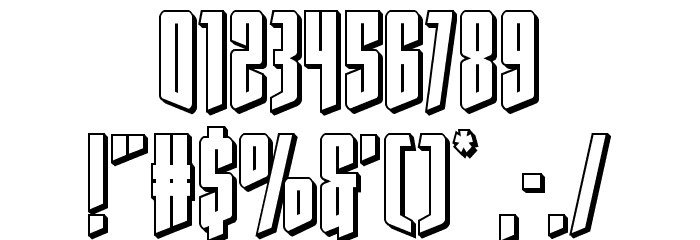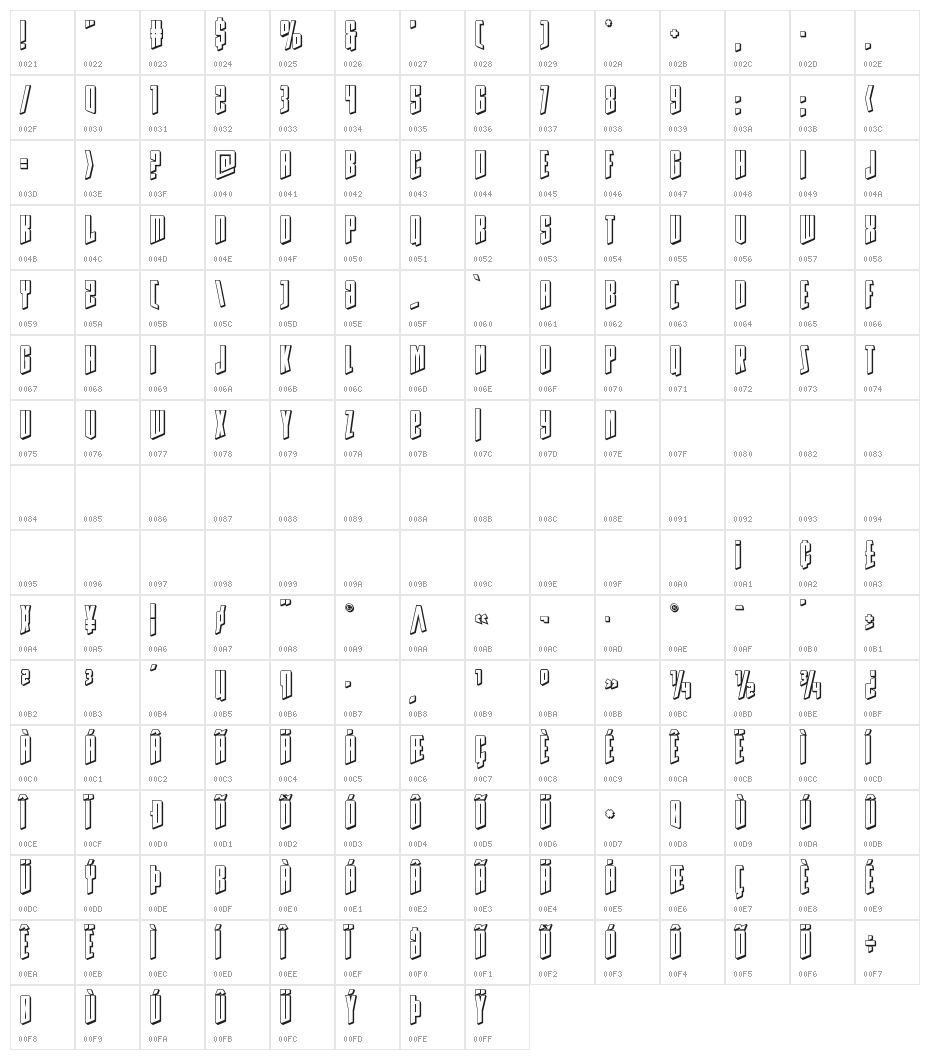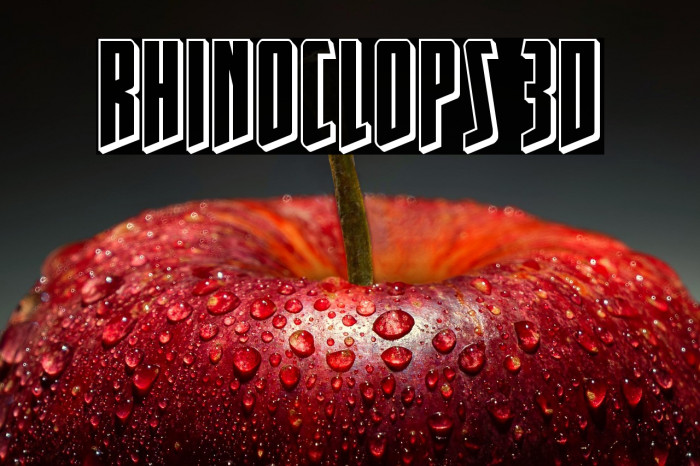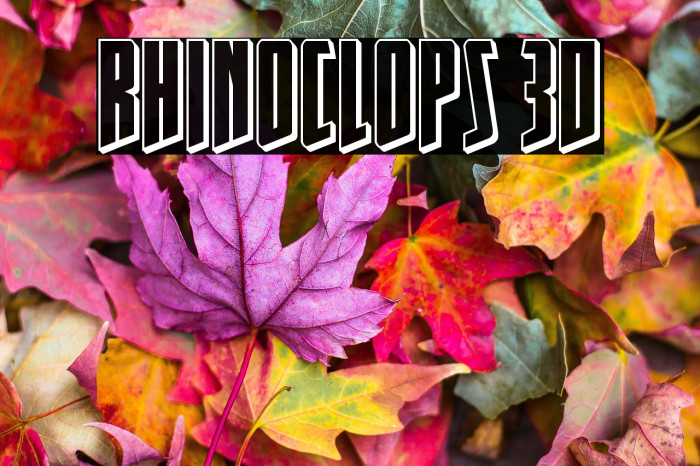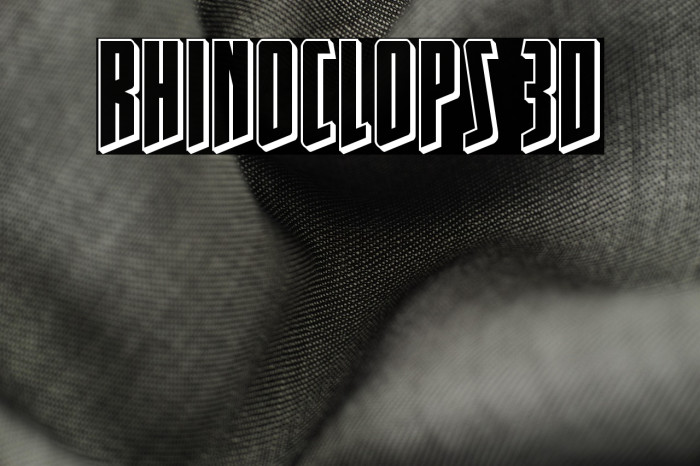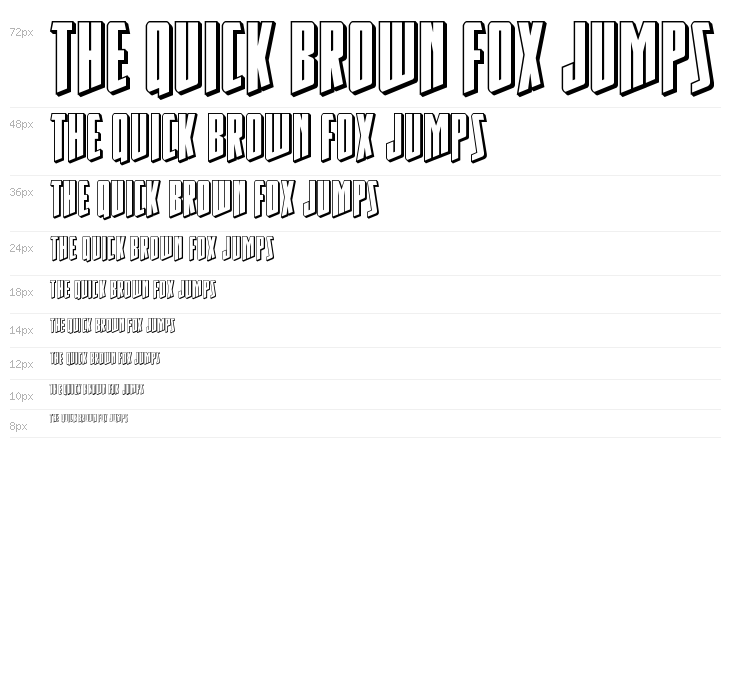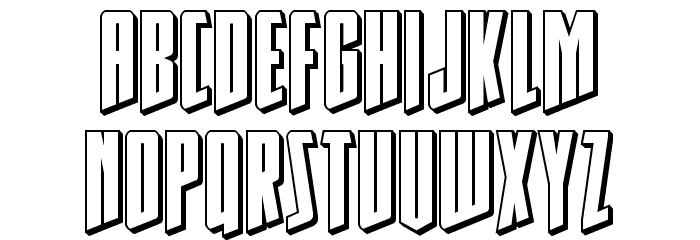
Rhinoclops 3D Font
Rhinoclops 3D Description
This font features a bold, three-dimensional design with a strong, impactful presence. The characters are outlined with a shadow effect, giving them a dynamic and eye-catching appearance. The uppercase letters are tall and narrow, with sharp angles and clean lines, creating a sense of movement and depth. The numerals and special characters maintain this bold style, ensuring consistency across all glyphs. This font is ideal for projects that require a striking and modern aesthetic.
| Proposed Projects | Ideal for posters, video game titles, logos, and any project needing a bold, modern look. |